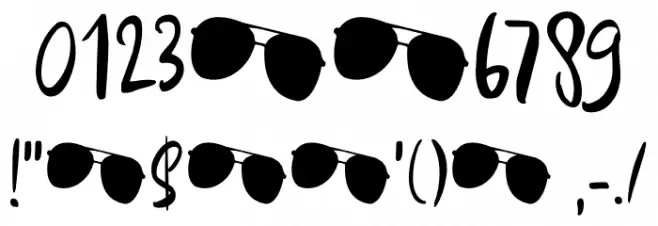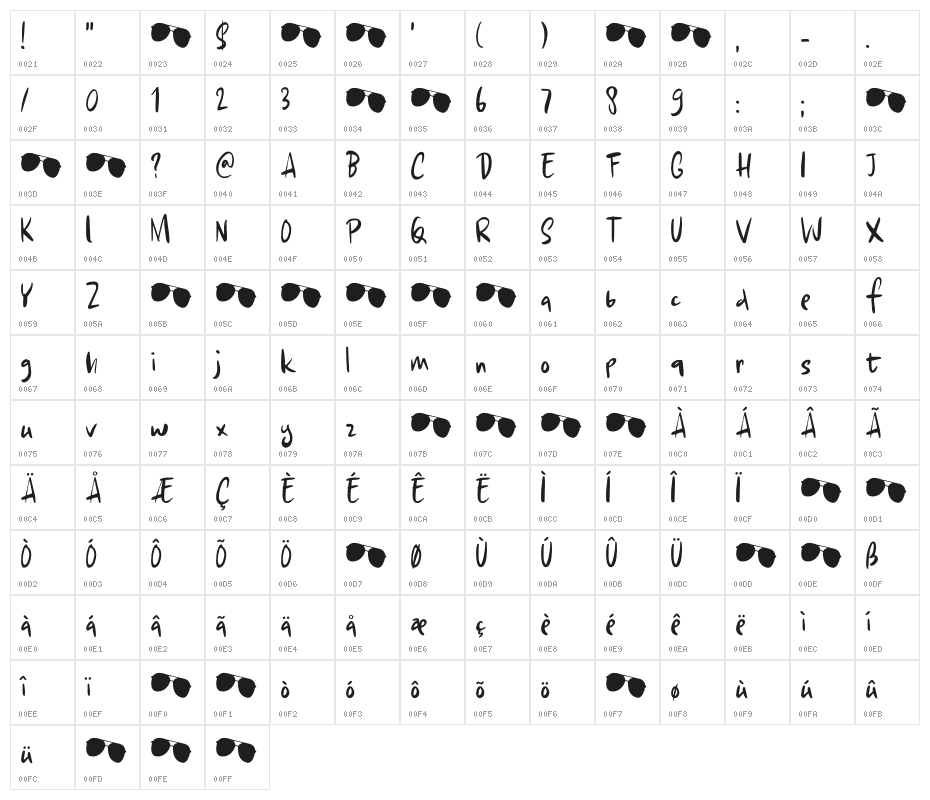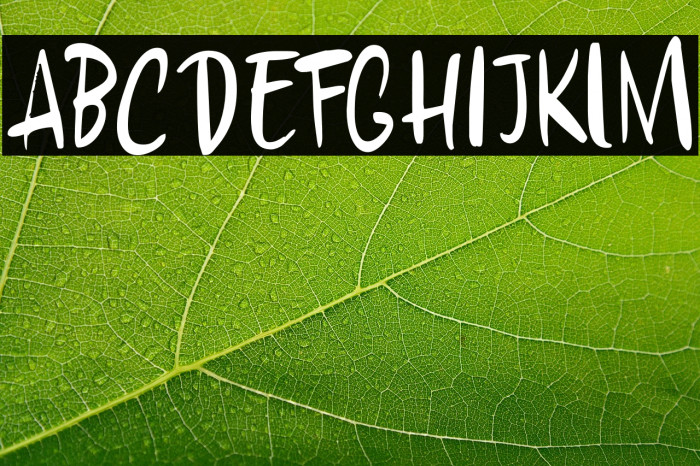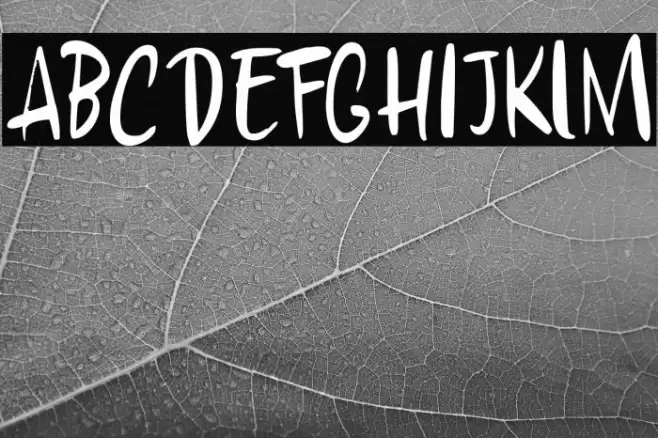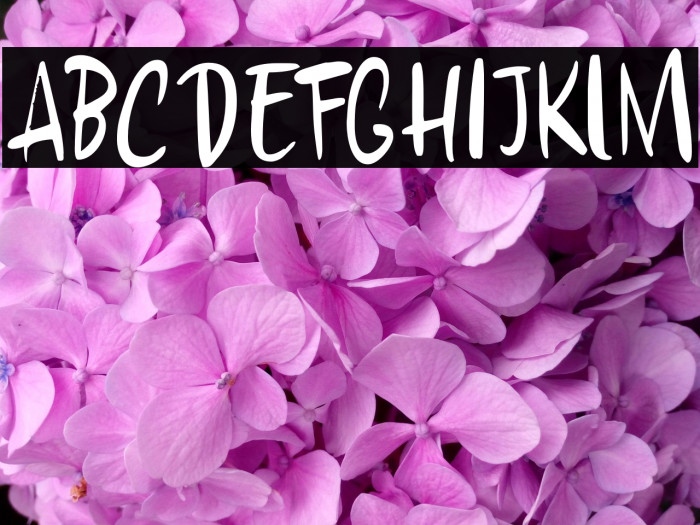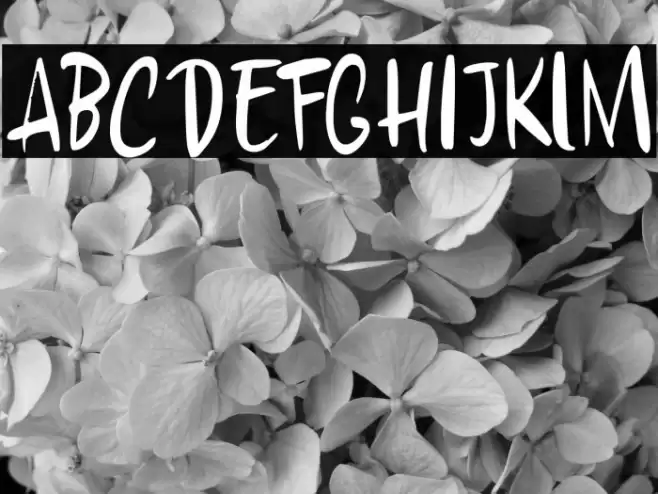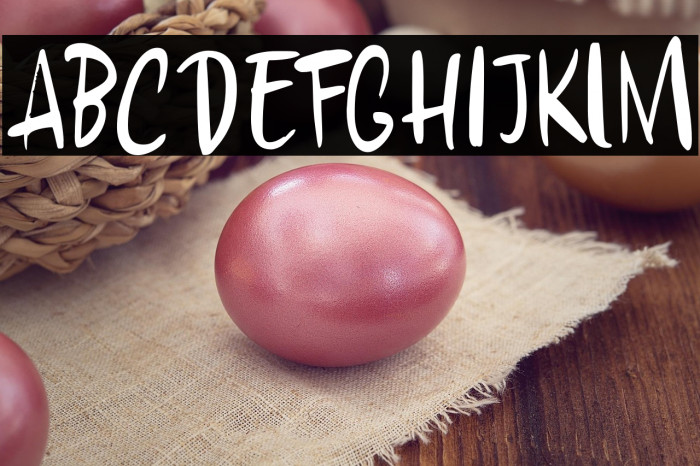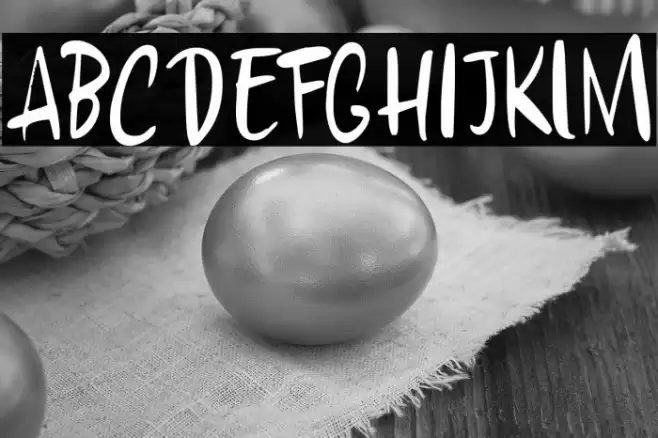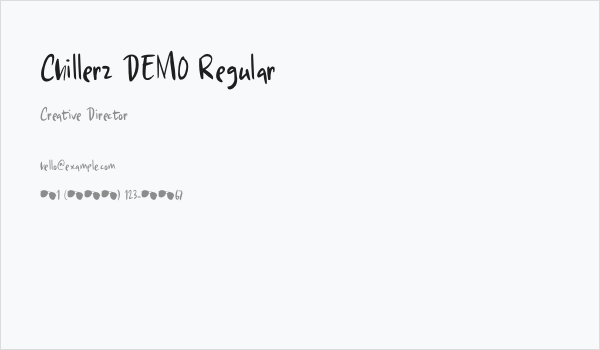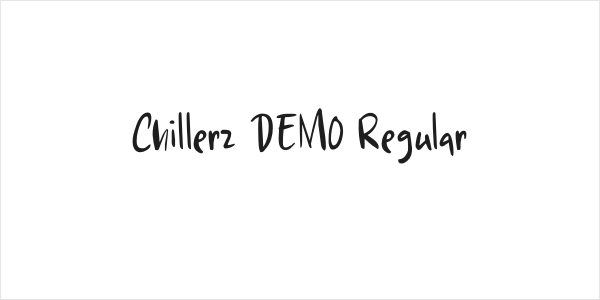
Chillerz DEMO Regular Font
Chillerz DEMO Regular Description
This font features a playful and energetic style, characterized by its irregular, hand-drawn appearance. The letters have a slightly uneven baseline, adding to the casual and informal vibe. The strokes are bold and varied, with some letters having thicker lines and others appearing more slender, creating a dynamic visual rhythm. The uppercase and lowercase letters maintain a consistent style, with rounded edges and a slightly slanted orientation. The numbers and special characters follow the same playful design, making the font suitable for creative and informal applications.
| Proposed Projects | Ideal for children's books, party invitations, playful branding, and creative posters. |